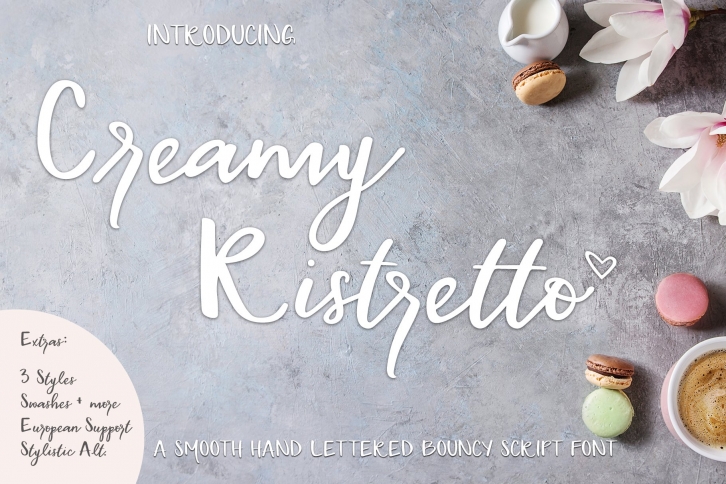
Give your designs unique personality with Creamy Ristretto, a smooth hand lettered bouncy script font! Perfect for greeting cards, branding, logo's, social media, packaging, magazine layouts, prints, vinyl projects and more!
Creamy Ristretto includes 4 styles, each one that brings a special distinctiveness: Light Script, Bold Script, Regular Script and Symbols.
What you get with Creamy Ristretto: A full Script style (upper sans serif and lowercase script) A regular script style PLUS a light & bold version A Symbols font with over 10 unique symbols; swashes, hearts and coffee cups Multilingual support is included for Western European languages in all styles.